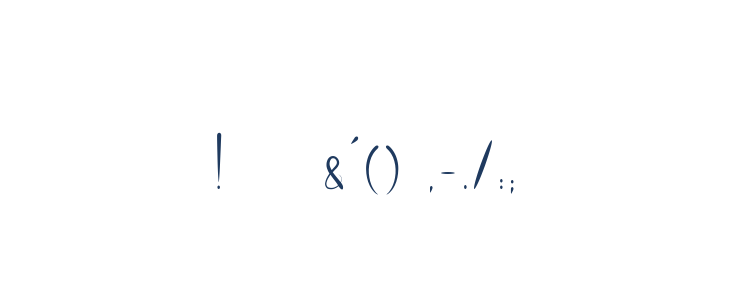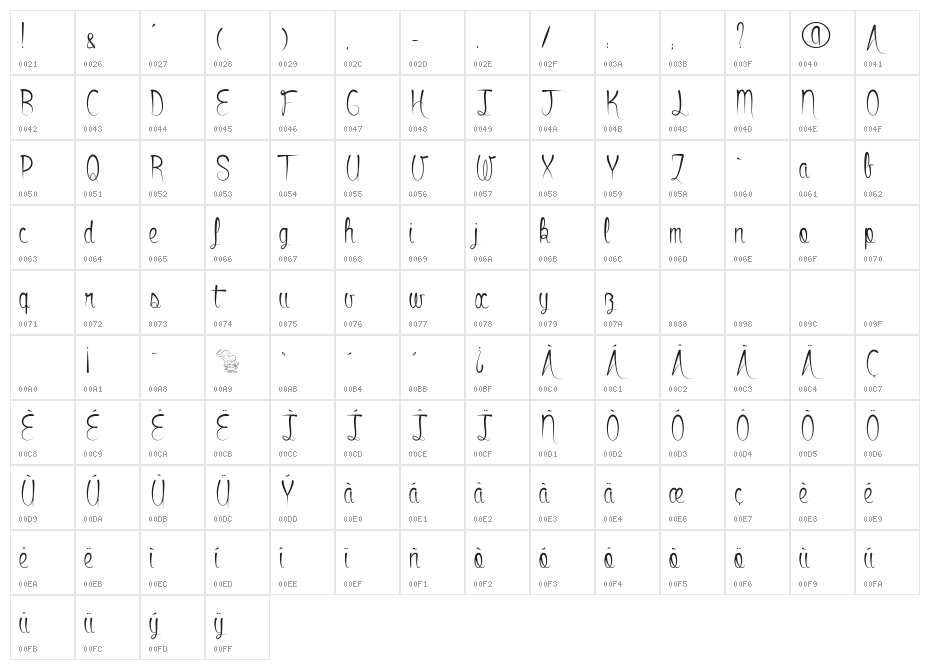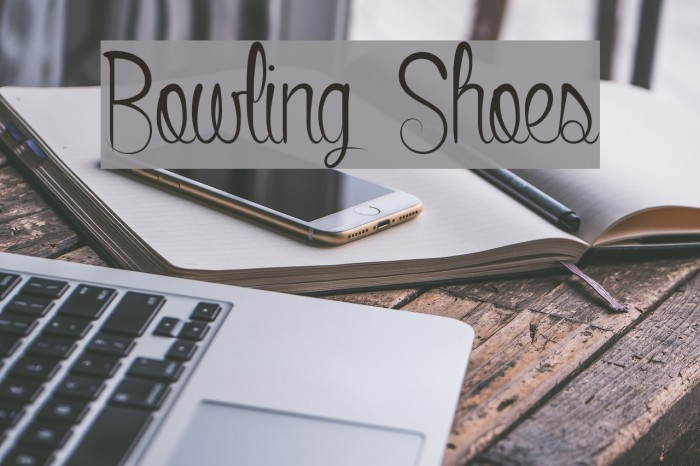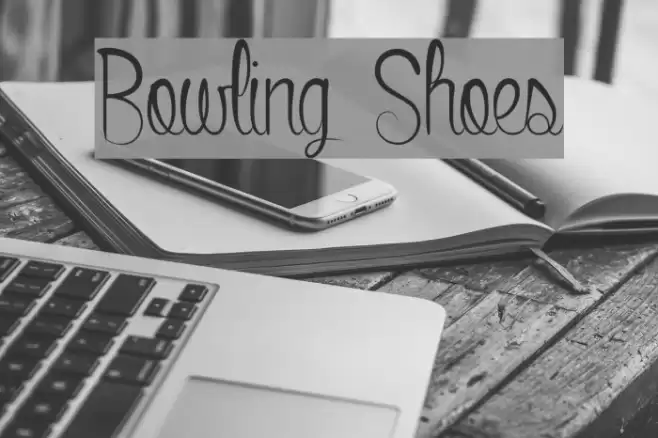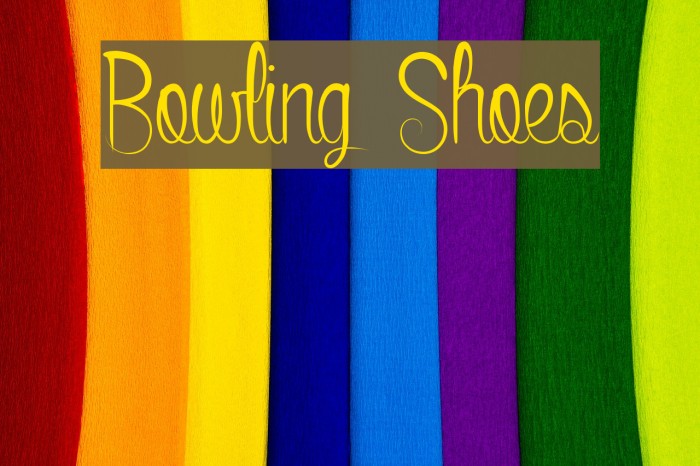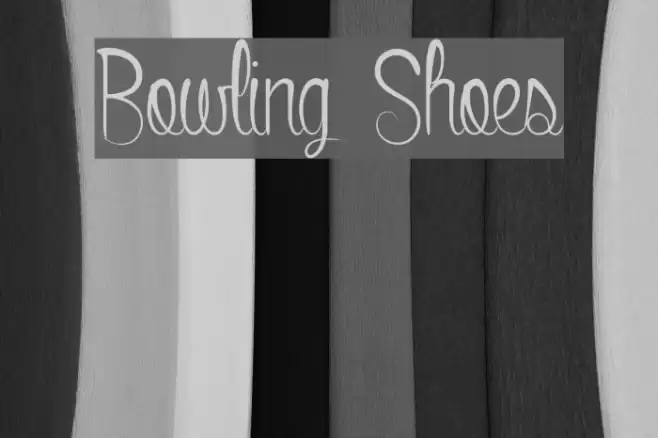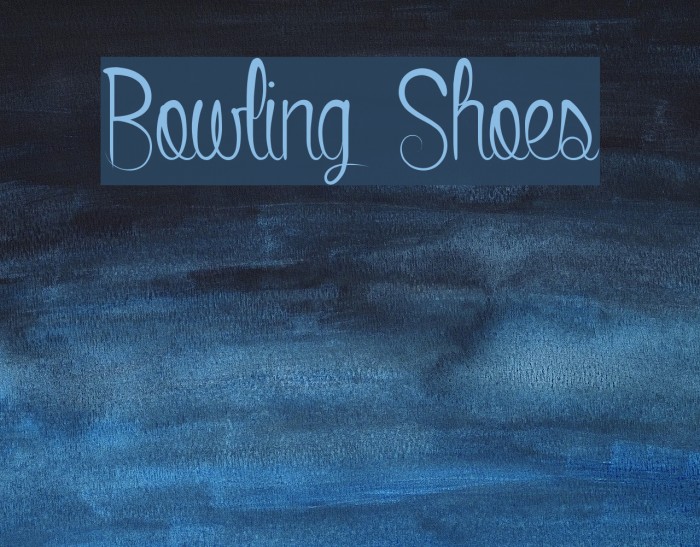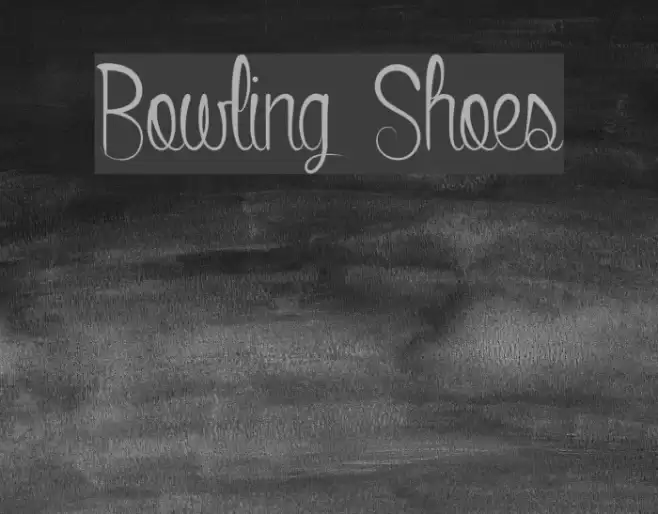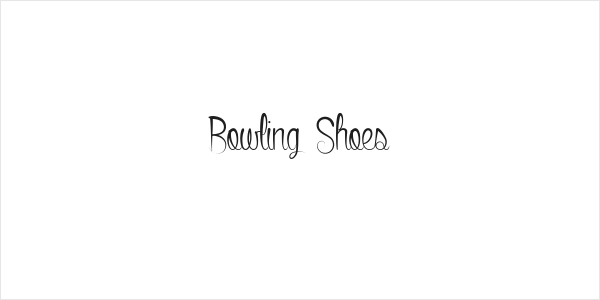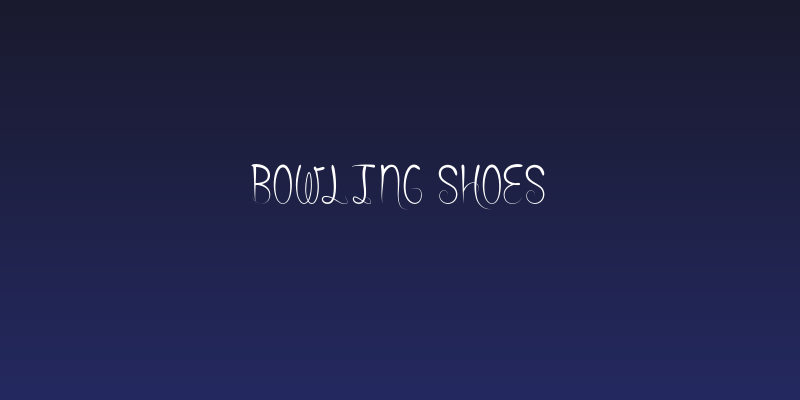
Bowling Shoes Font
Bowling Shoes Description
This font features a whimsical and playful design with elongated and curvy strokes that give it a unique, artistic flair. The uppercase letters are tall and slender, with some characters incorporating elegant swirls and loops, adding a touch of sophistication. The lowercase letters maintain a consistent style, with a slightly more compact form, yet still retaining the fluidity and grace of the uppercase. The numerals and special characters follow the same aesthetic, ensuring a cohesive look throughout. This font's distinctive style makes it stand out, perfect for creative projects that require a touch of elegance and personality.
| Use Case | Headlines, Logos, Decorative text |
| Proposed Projects | Ideal for wedding invitations, artistic posters, branding for creative businesses, and decorative signage. |